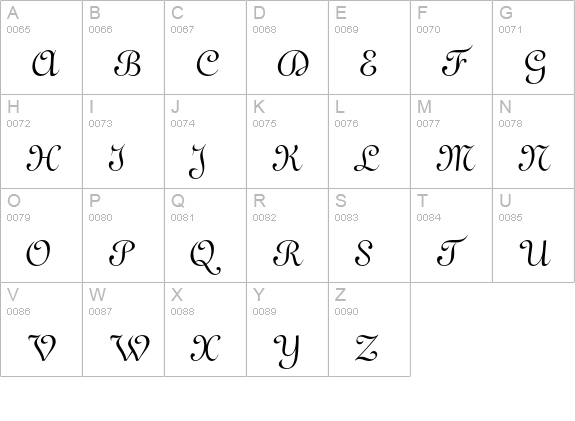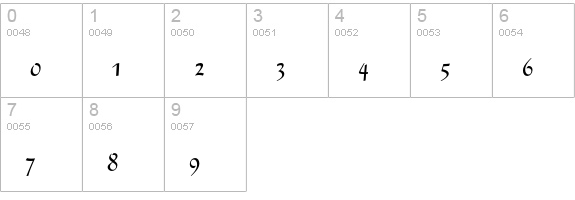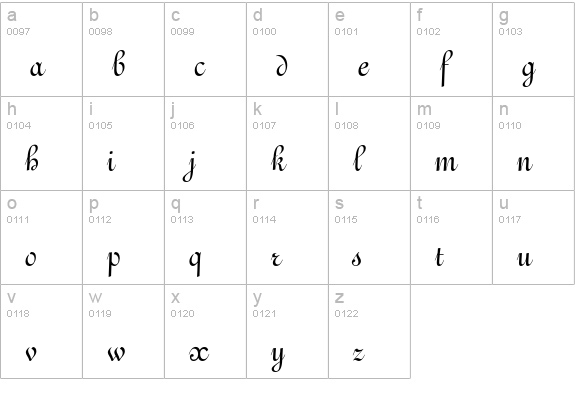
Gando Font Details
Gando font is a stunning typeface that exudes elegance and sophistication. With its sleek and modern design, Gando font is perfect for a wide range of projects, from branding and advertising to editorial and web design. This versatile font features clean lines and a balanced letterform, making it highly readable and visually appealing. What sets Gando font apart is its unique combination of classic and contemporary elements. The graceful curves and sharp angles create a harmonious balance that catches the eye and leaves a lasting impression. Whether you're designing a logo, a poster, or a website, Gando font will add a touch of refinement and professionalism to your work. One of the best things about Gando font is that it is free to download. Yes, you read that right! This premium font is freely available at FontsMarket.com, a reputable source for high-quality fonts. So, you can enhance your designs without breaking the bank. With Gando font, you'll have access to a world-class typeface that will elevate your projects to new heights. Don't miss out on this incredible opportunity to elevate your designs with Gando font. Download it for free at FontsMarket.com and see the difference it can make in your work. Whether you're a professional designer or a hobbyist, Gando font will be a valuable addition to your font library. So, don't wait any longer – get Gando font today and start creating visually stunning designs that will leave a lasting impression.